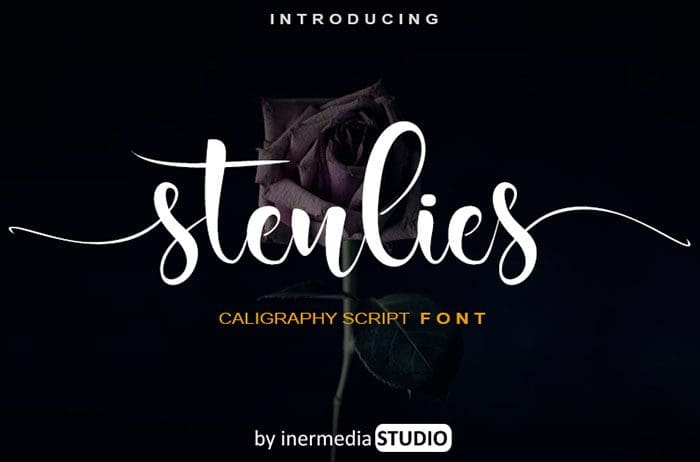
Stenlies calligraphy font with an incredibly friendly feel. It features gorgeous swashes and ligatures that make this script incredibly versatile. It will take your crafting projects to the next level! Designed this font by Inermedia Studio. You can also search more freeĀ Calligraphy Fonts.
Designed By : Inermedia Studio